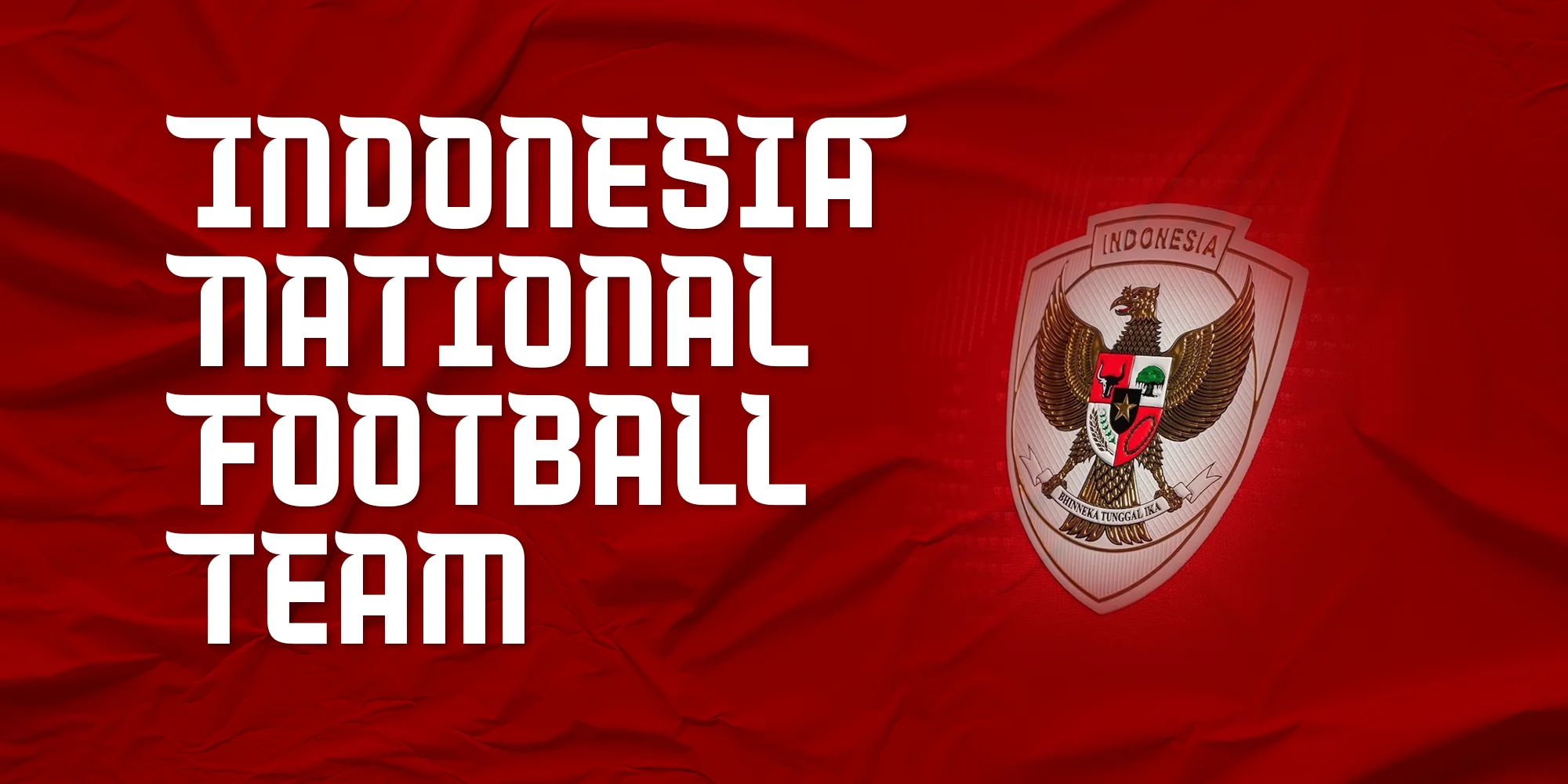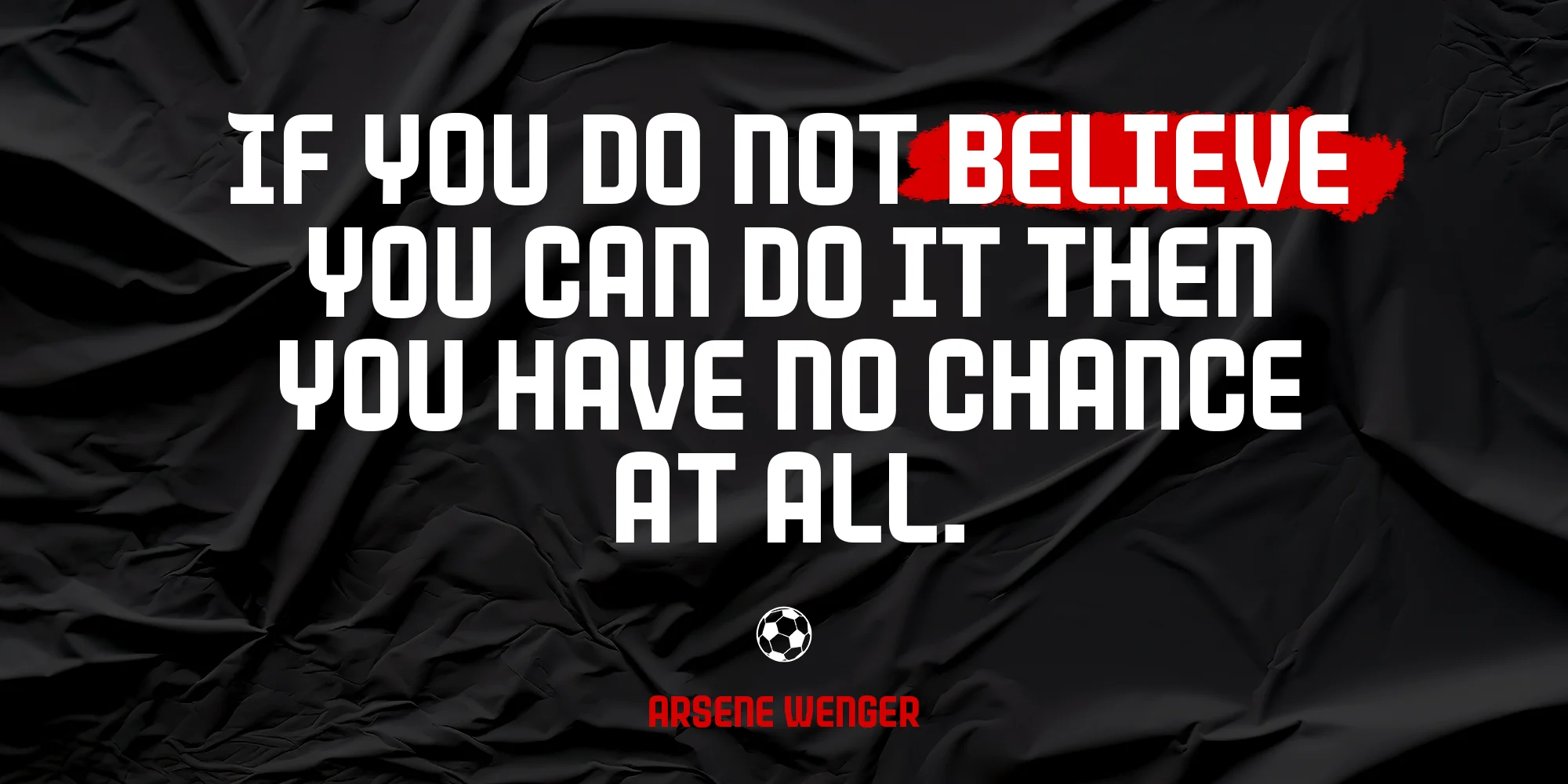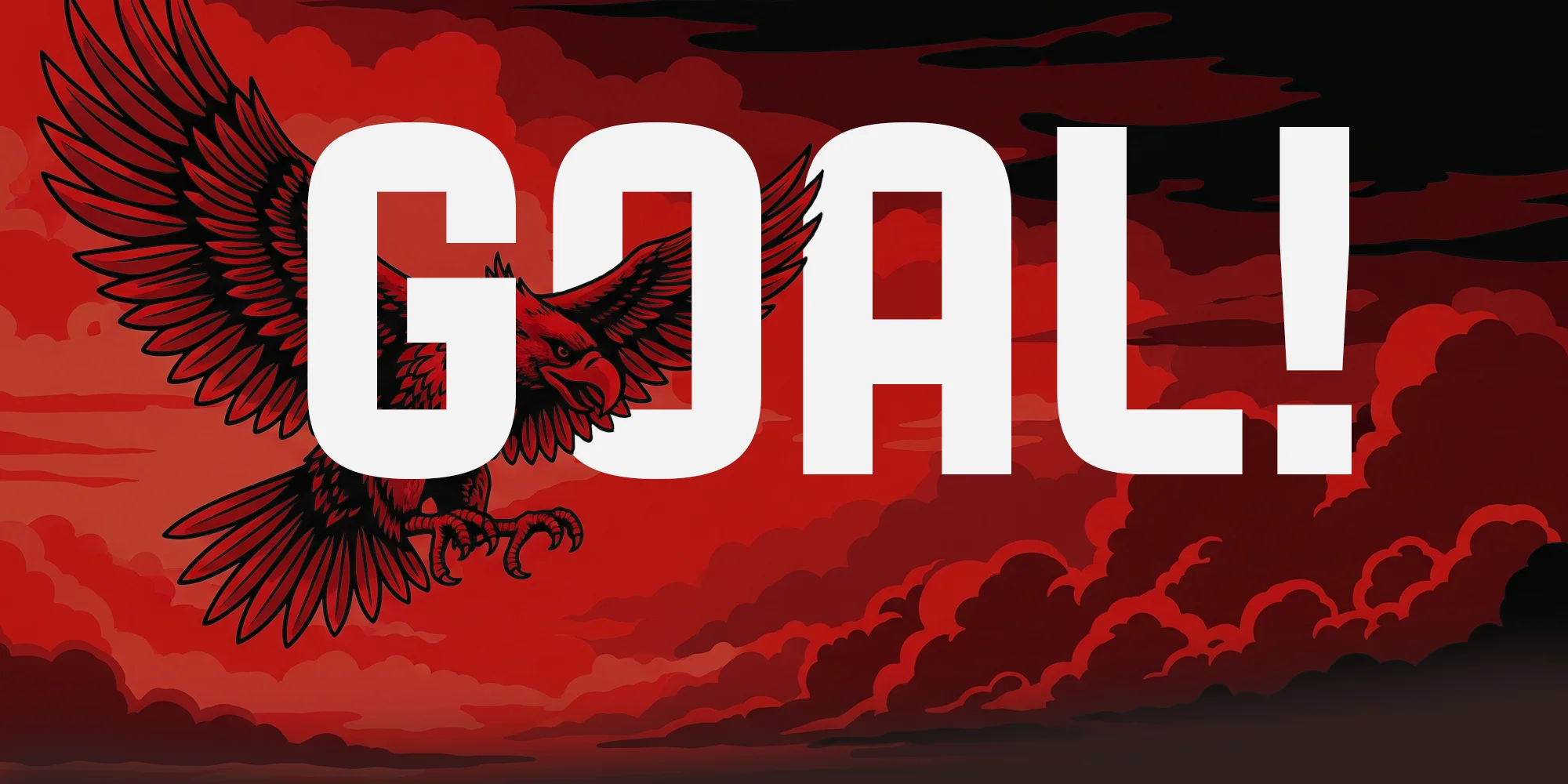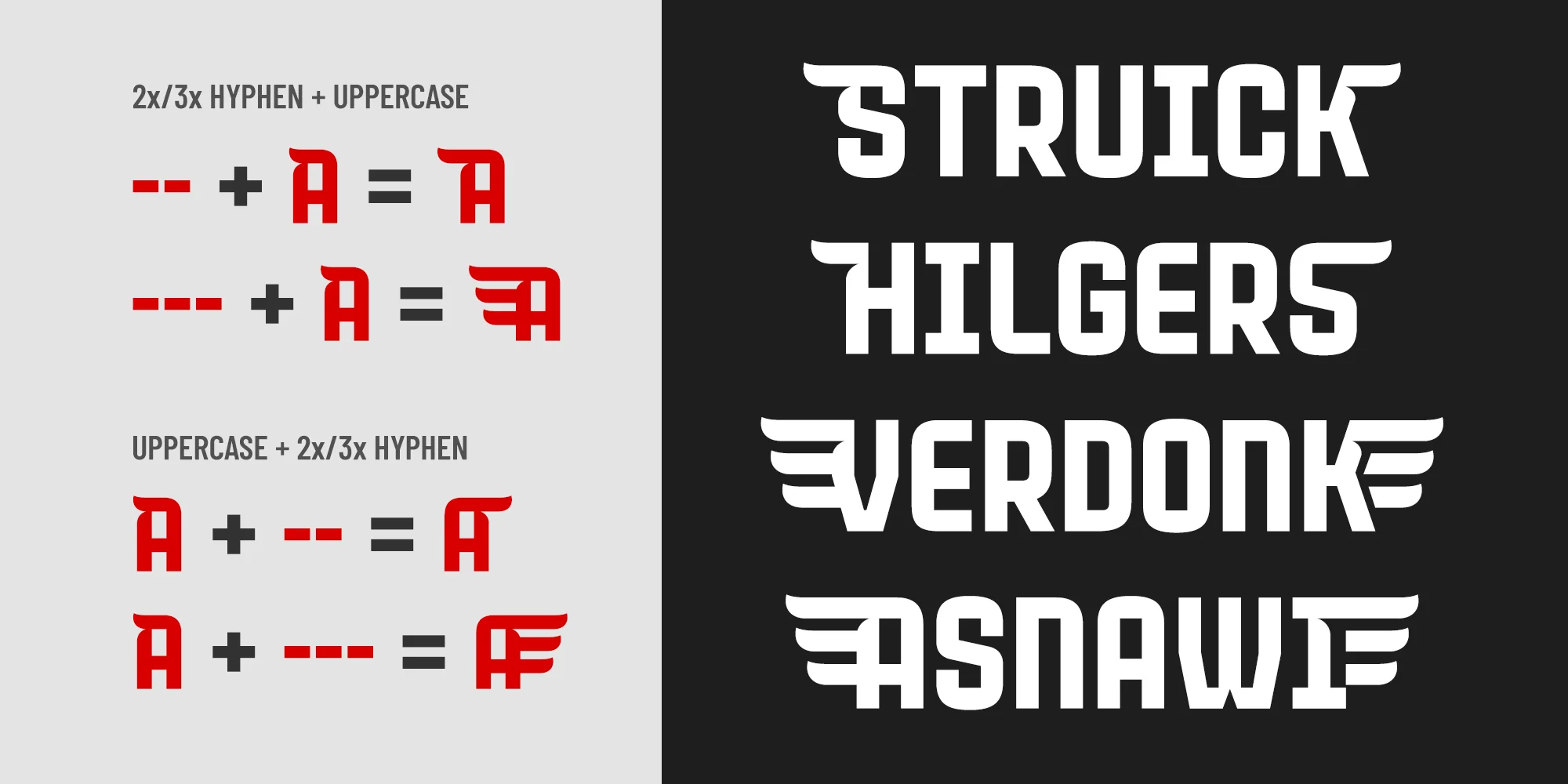
About Garuda Squad Font
Unleash the power and passion of Indonesian football with Garuda Squad Font. Inspired by the majestic wings of the Garuda, Indonesia’s national emblem, this unique typeface embodies the strength, agility, and unwavering spirit of the national team. Perfect for sports branding, fan merchandise, or any design craving a bold, patriotic touch, Garuda Squad Font lets you show your pride and cheer on the Merah Putih in style. Feel the roar of the crowd and the flight of the Garuda in every character!
Open Type Features:
Localized Forms, Ordinals, Stylistic Alternates, Contextual Alternates, Kerning, Ligatures